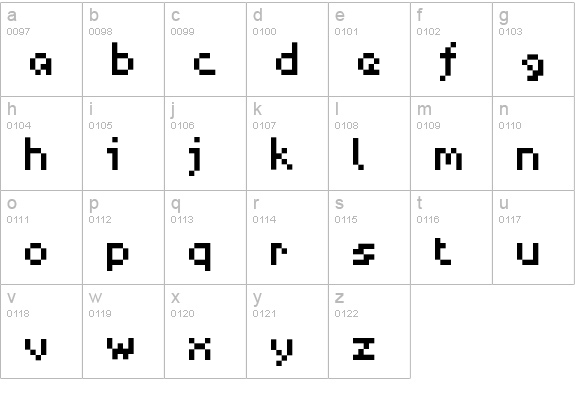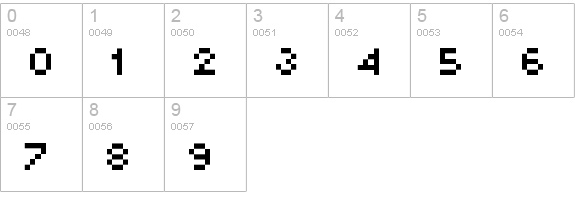
ROTORanti Font Details
Introducing ROTORanti font, a captivating and modern typeface designed to make a bold statement. With its unique and edgy aesthetic, this font is perfect for adding a touch of sophistication to any project. The sleek lines and sharp angles of ROTORanti create a sense of movement and dynamism, making it ideal for branding, logo design, and other graphic applications. What sets ROTORanti font apart is its versatility - it can be used for both headings and body text, making it a versatile choice for a wide range of design projects. Whether you're looking to create a sleek and minimalist look or add a touch of urban flair, ROTORanti has got you covered. Best of all, ROTORanti font is available for free download at FontsMarket.com. So go ahead and give your designs a fresh and modern look with ROTORanti font today!